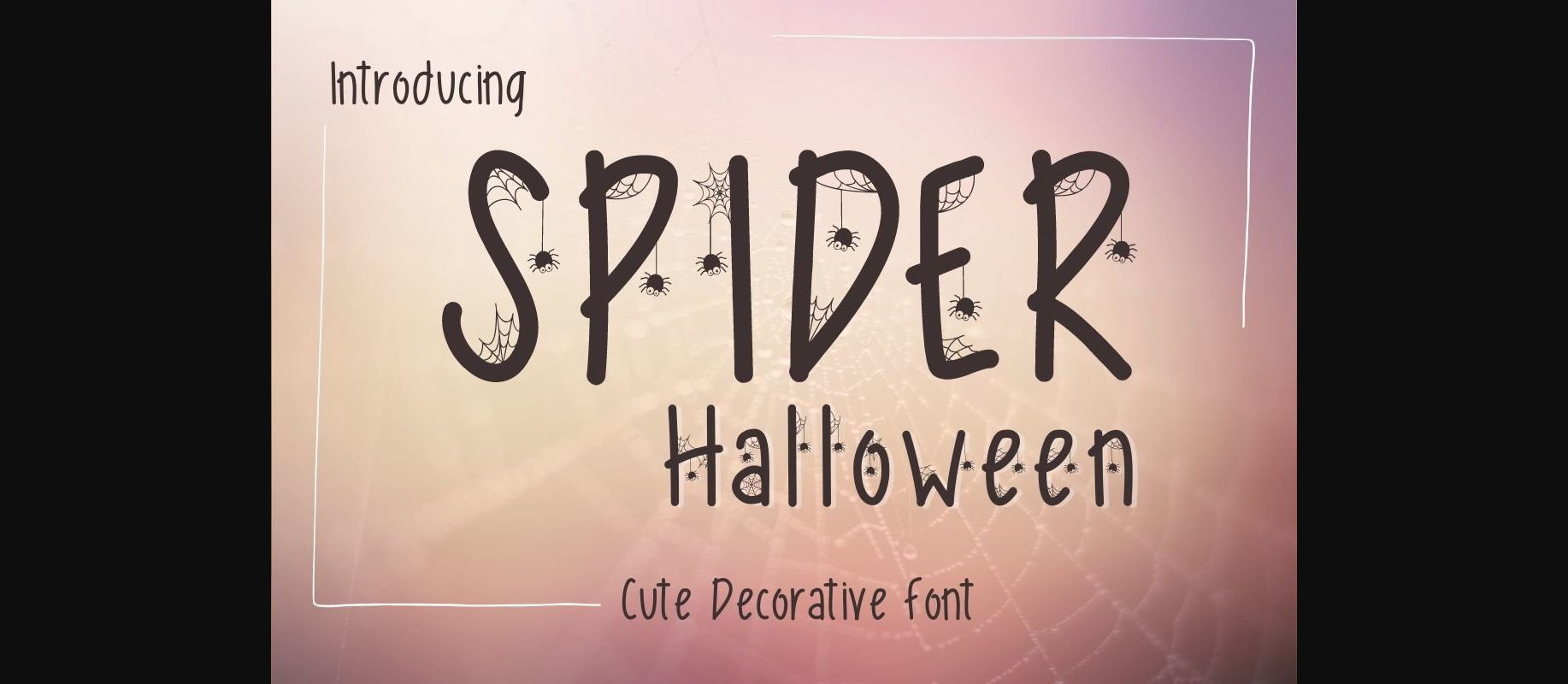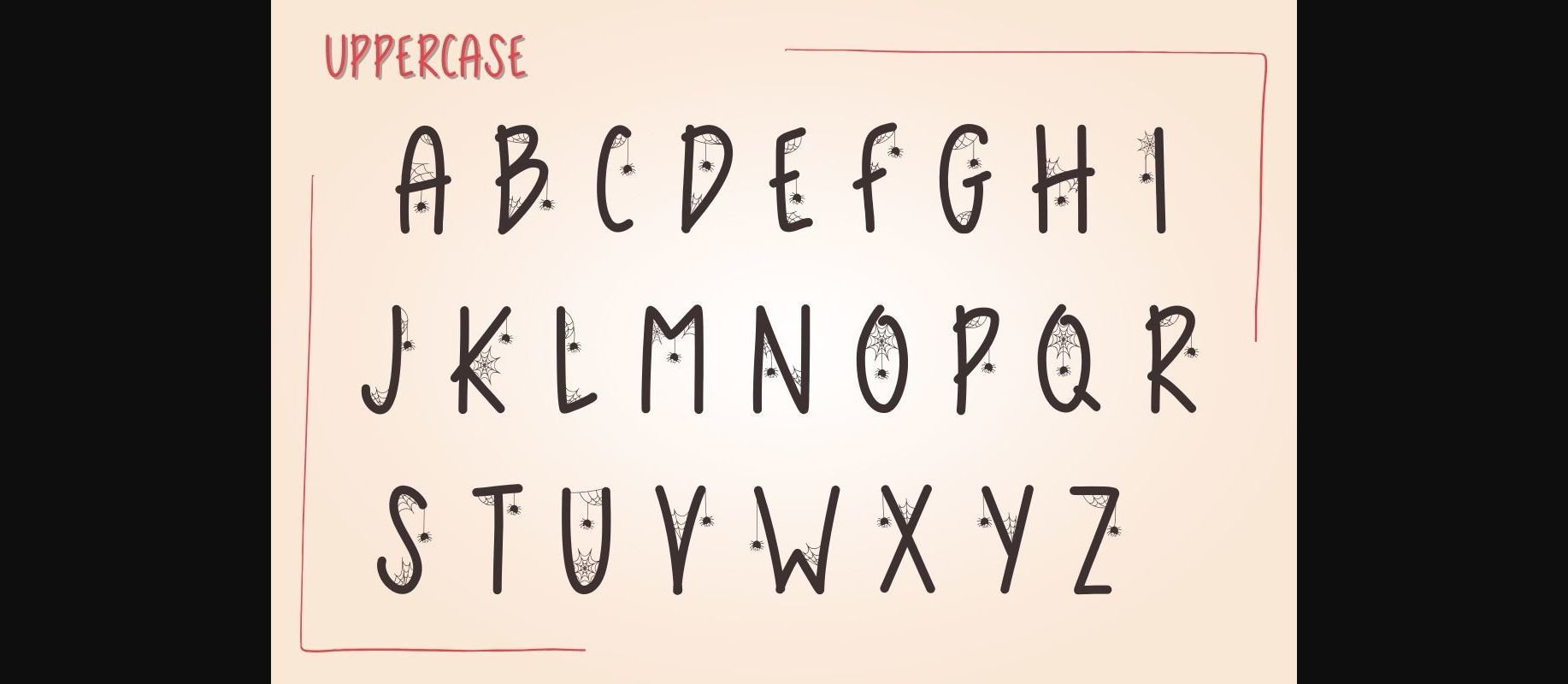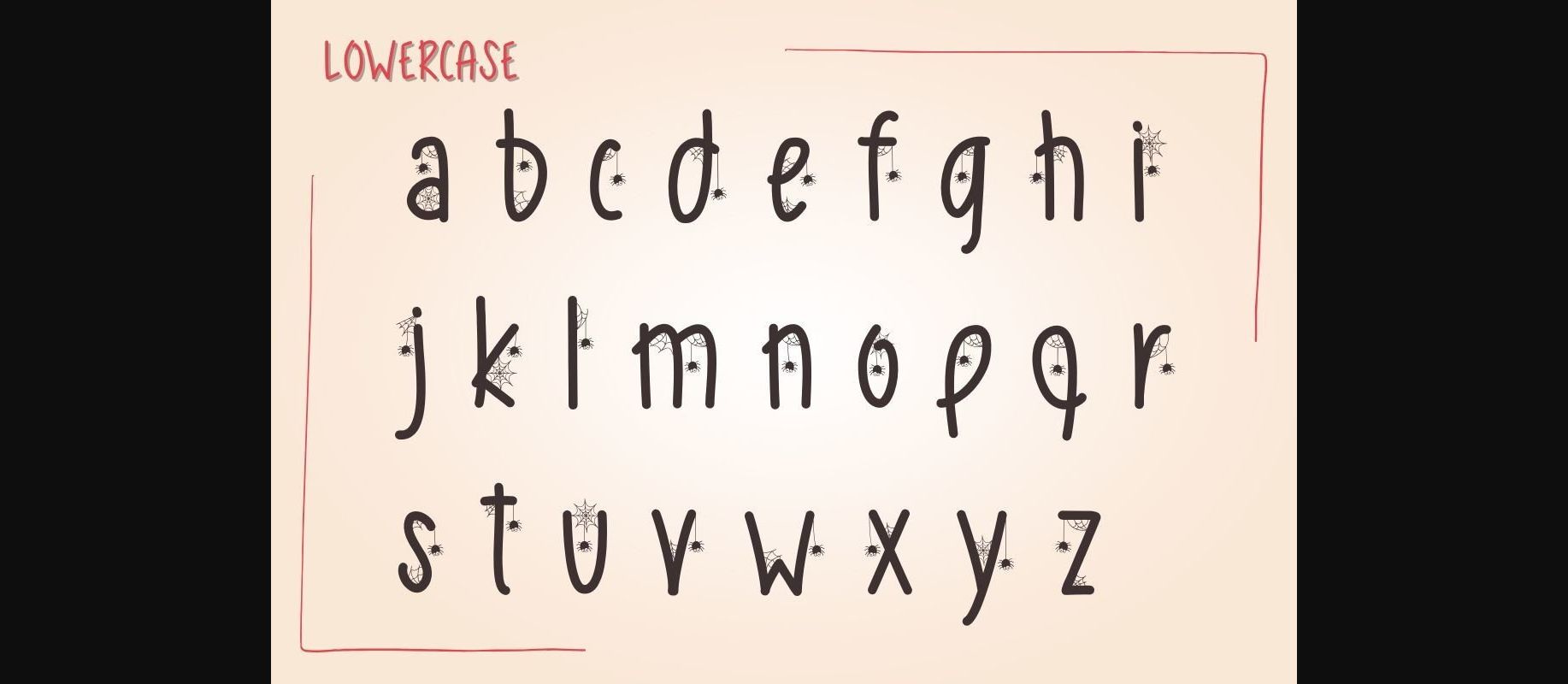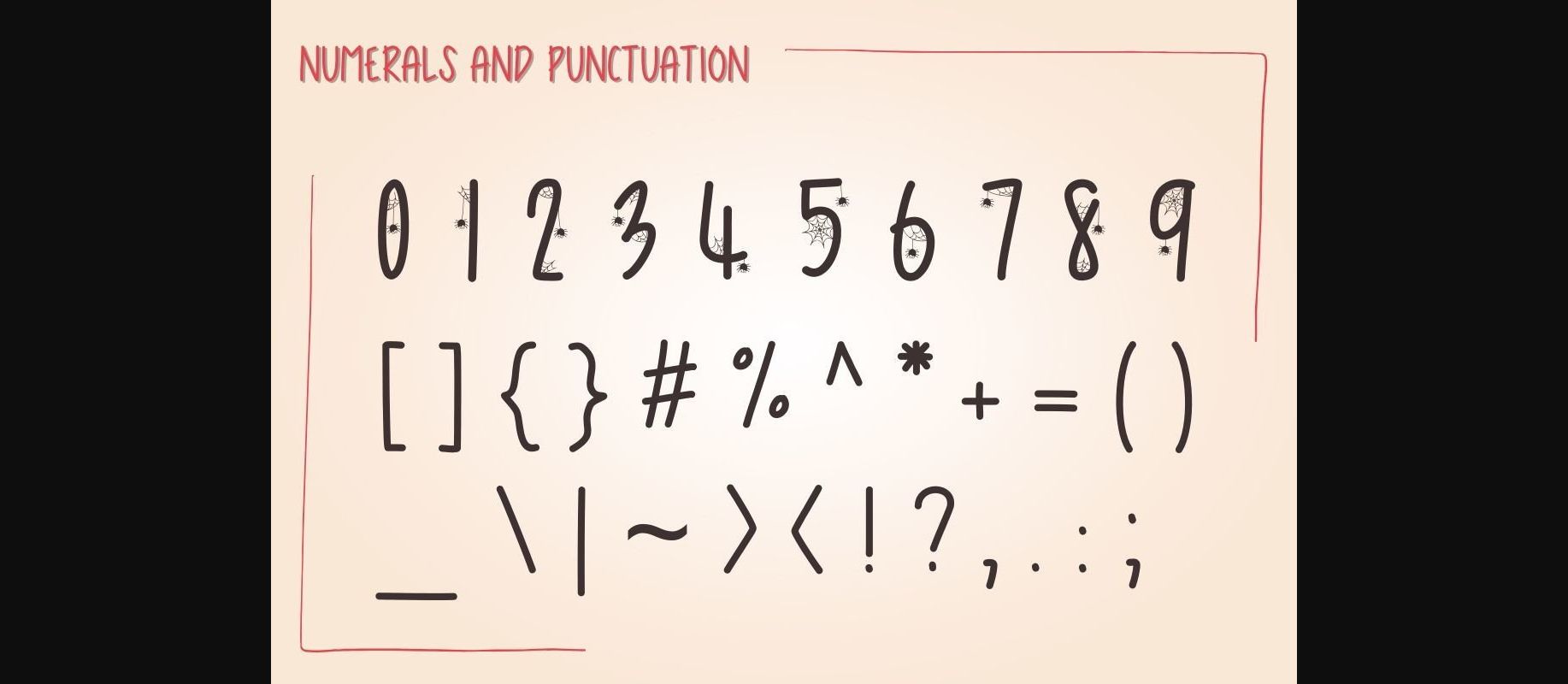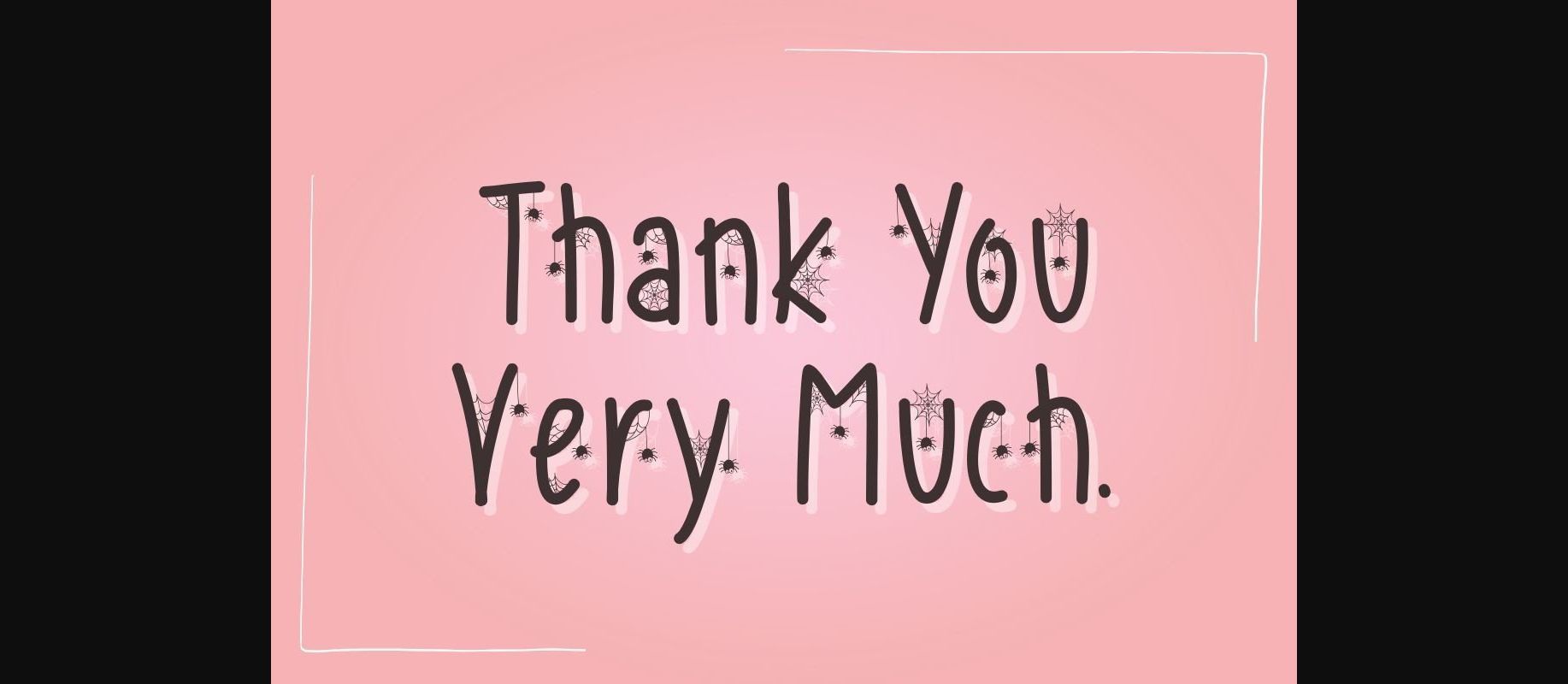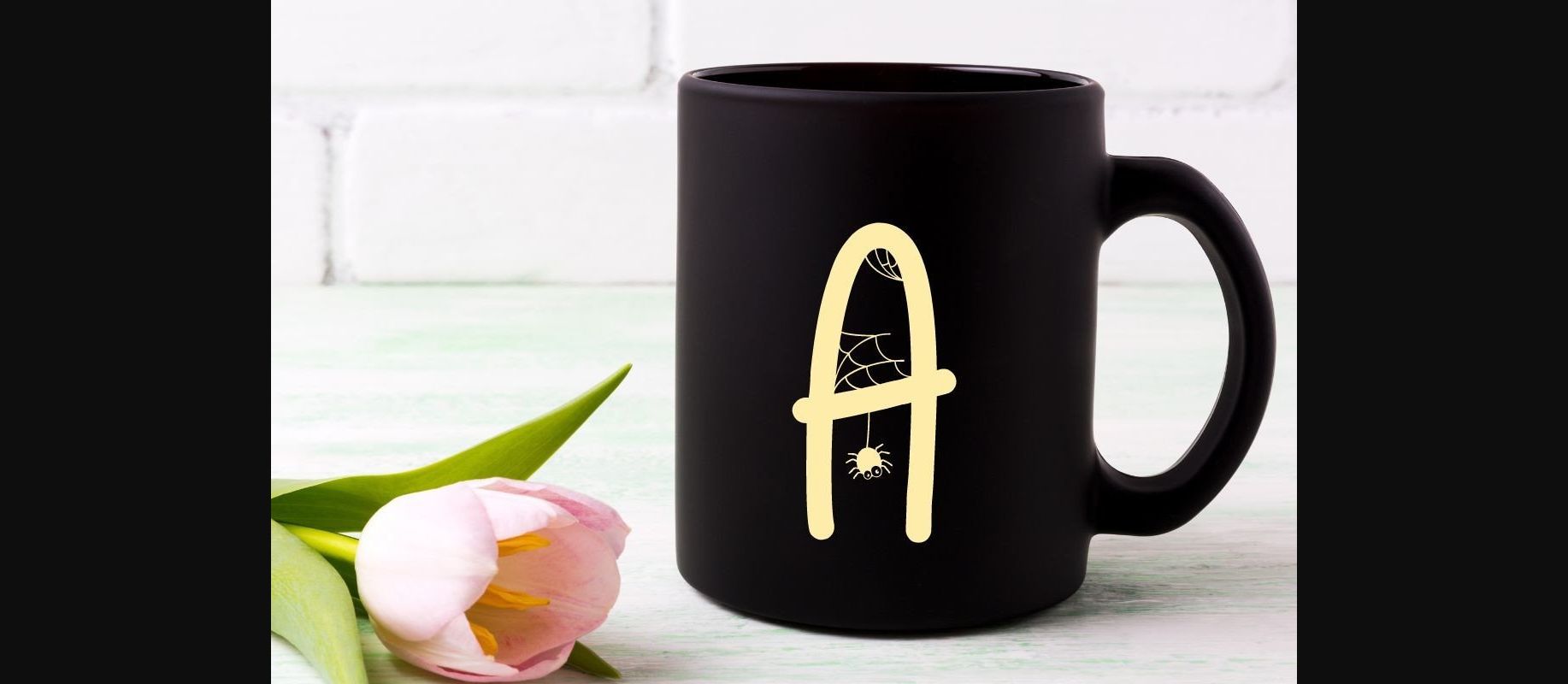
Spider Halloween Font
About Spider Halloween Font
Spider Halloween is a fun decorative font. This font uses multiple cute spiders and spider web silhouettes combined with thin letters. This font has a cute and quirky style, suitable for a wide range of spooky projects.